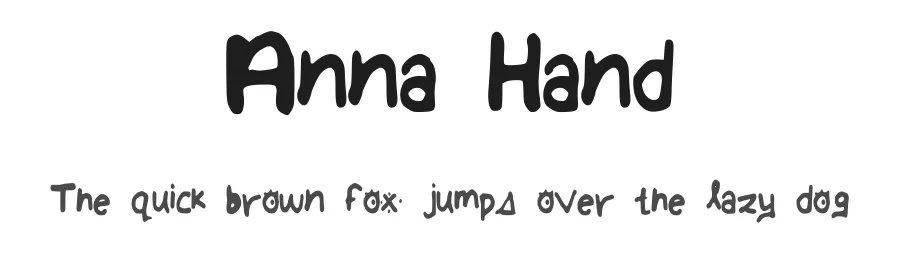
About Annas Handschrift Font
Annas Handschrift is a script & handwritten font designed by Anna. It includes 143 glyphs, a medium weight, TTF (TrueType) format, and 133 languages. Annas Handschrift is free to download; check the license details on this page before commercial use. Script & handwritten fonts like Annas Handschrift work best for wedding invitations, greeting cards, signatures, and elegant branding.
Annas Handschrift Font is a script font that shines as a display or heading face. Pair it with a clean sans-serif or serif font for body text β the contrast creates a clear hierarchy while the two styles stay balanced and easy to read.
Annas Handschrift Font